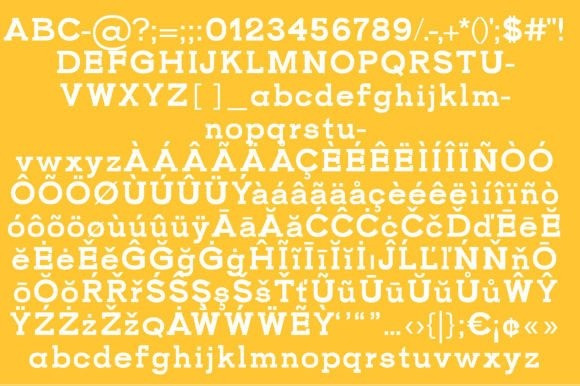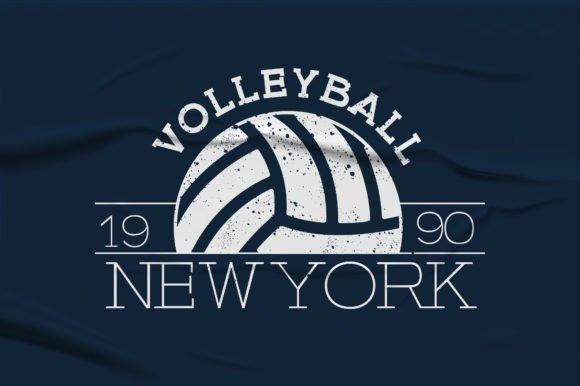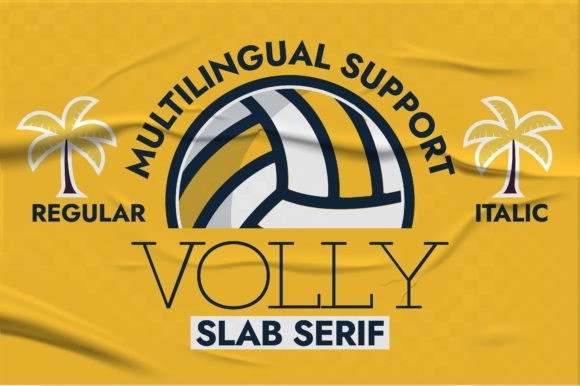
Volley Font
Volley Font is a sports slab serif typeface. It can be used in a wide range of design themes such as sport theme, summer themes, vintage posters, packaging, etc. Its thin aspect renders it a valid choice to be used on large scales. Add this font to your fonts library and you notice how it fastly becomes one of your favorite choices.